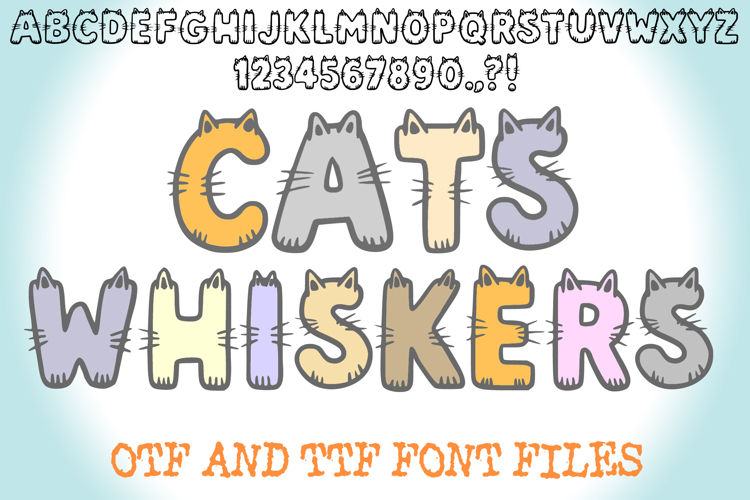
Cats Whiskers Alphabet Lettering ABC Text Kitten Font OTF
Bring a purr-fectly adorable, whimsical charm to your creative projects with the incredibly cute Cats Whiskers Font. This delightfully playful display typeface features chunky, rounded bubble letters topped with cute pointed cat ears and finished with tiny, charming whisker details on the sides. Perfectly capturing a sweet, cartoonish pet aesthetic, this alphabet is the ultimate choice for pet lovers, children's designs, and any project that needs a friendly, lighthearted touch of feline fun.
Delivered as installable OTF and TTF font files, this highly versatile outline structure offers infinite creative options. It serves as an excellent resource for a designer who wants to fill the hollow characters with soft pastel colors, overlay fun calico or tabby patterns, or place custom kitty faces inside the open counters. The clean, smooth vector paths scale beautifully across all major design and cutting software, ensuring sharp, high-quality results for digital templates and physical craft projects alike.
Ideal For Creative Merch & DIY
Custom Merchandise: Design heartwarming typography layouts for cat-themed apparel, cute pet accessory tote bags, and cozy screen-printed hoodies.
Die-Cut Stickers: Create sweet, high-impact vinyl decals for water bottles, pet planners, scrapbooks, and laptop covers.
Theme Stationery: Perfect for children's birthday invitations, cat cafe flyers, animal shelter adoption event posters, or whimsical greeting cards.
Artisan Branding: Elevate logos, business cards, and social media packaging for independent cat cafes, pet bakeries, veterinary clinics, or handmade pet toy brands.